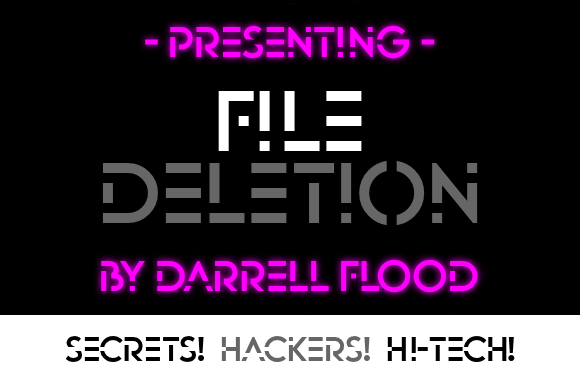
Uncovering the Hidden Code: File Deletion Font
As a designer, have you ever found yourself stuck in a creative rut, searching for the perfect font to bring your futuristic vision to life? Perhaps you’ve been brainstorming ideas for a secret mission or a hacking-themed project, and the right typography has been elusive. Well, we’ve got the solution for you – meet the File Deletion Font, a sleek and edgy typeface that’s sure to take your designs to the next level.
This futuristic font boasts a unique, half-deleted style that’s perfect for modern use. With full character alternates available in the upper case letters, you can add an extra layer of depth and intrigue to your designs. Whether you’re working on a high-stakes mission or a cutting-edge tech project, the File Deletion Font is an invaluable tool for any designer looking to make a statement.
- Unique Characteristic: Each letter and symbol in the font family is designed to resemble a file deletion process, creating a visually striking and memorable experience.
Designer Review: File Deletion Font
I recently had the opportunity to work with the “File Deletion Font”, and I have mixed feelings about it. Here’s my honest review.
- The font’s unique concept is quite catchy. It effectively conveys the idea of deleting a file, which can be a fun and creative way to represent this action.
- The font is well-designed and visually appealing, making it a great choice for projects that require a bold and eye-catching look.
- The font is highly customizable, allowing designers to adjust the style and size to fit their specific needs.
- The font may be too on-the-nose for some projects, which could make it feel tacky or overused.
- The font may not be suitable for projects that require a more subtle or professional look.
- The font’s bold style may not be suitable for small text sizes, which could make it difficult to read.
Overall, I think the “File Deletion Font” is a fun and creative option for designers who want to add a touch of whimsy to their projects. However, it may not be the best choice for every project, and designers should carefully consider the context and audience before using it.
Tips for Getting the Most Out of File Deletion Font
Use File Deletion Font to create bold, attention-grabbing messages or warnings.
Combine File Deletion Font with other design elements to create a dramatic effect.
Use File Deletion Font to add a touch of edginess to your designs.
Warning messages
Caution signs
Attention-grabbing headlines
Edgy or futuristic designs